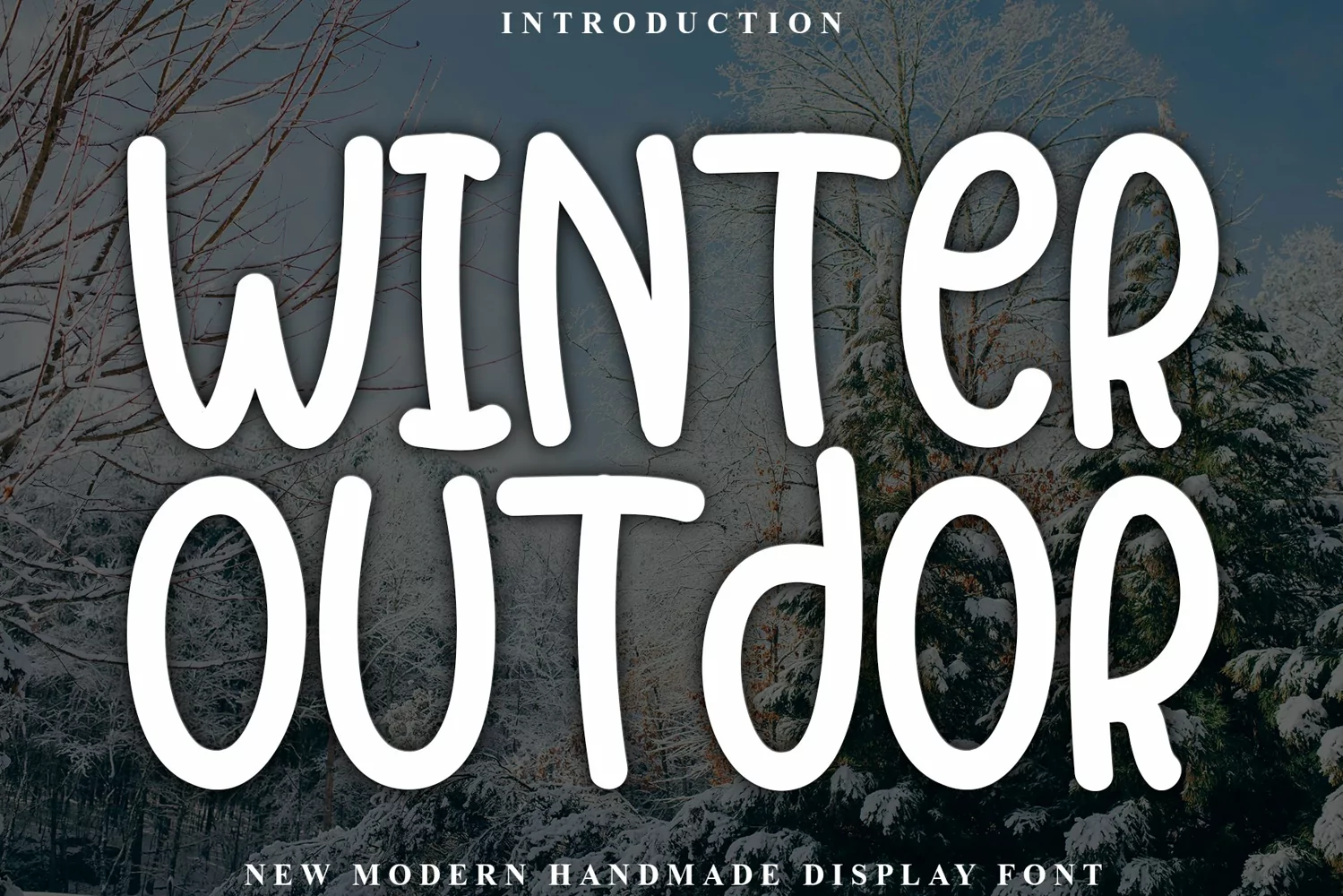
Winter Outdor
Winter Outdor is a beautiful and eye-catching font designed with a soft, unique touch. Its distinctive strokes give it a special character, making it meaningful and versatile for future use. With various characters, it’s perfect for design projects, crafts, and other creative works.